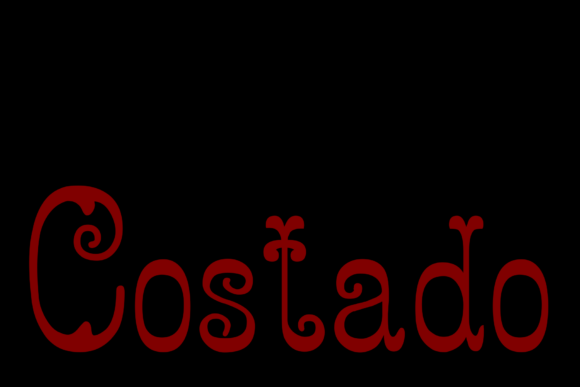
Introducing Costado Font: A Timeless Classical Wood-Type Font
In the world of typography, few fonts manage to evoke a sense of history and sophistication as effortlessly as Costado Font. This classical wood-type font, with its elegant and vintage letterforms, is inspired by the traditional woodblock printing techniques of the past. With its sturdy and timeless appearance, Costado Font is the perfect choice for designers looking to add a touch of nostalgia and refinement to their projects.
The Inspiration Behind Costado Font
Costado Font draws its inspiration from the traditional woodblock printing methods that were once used to create signage, posters, and other printed materials. The font’s designer sought to capture the essence of this classic printing technique, with its characteristic imperfections and quirks, and translate it into a digital format.
The result is a font that exudes a sense of history and authenticity, with each letterform carefully crafted to evoke the feel of traditional woodblock printing. From the subtle variations in line width to the gentle wear and tear of the letterforms, Costado Font is a masterful recreation of a bygone era.
Key Features of Costado Font
Costado Font is a versatile and elegant font that offers a range of features that make it perfect for a variety of design projects. Some of its key features include:
- Elegant, vintage letterforms: Inspired by traditional woodblock printing, Costado Font’s letterforms are characterized by their classic, timeless appearance.
- Two styles: Costado Font offers two styles, allowing designers to choose the perfect look for their project.
- Timeless and sturdy appearance: The font’s sturdy and timeless appearance makes it perfect for designs that need a touch of history and sophistication.
Uses for Costado Font
Costado Font is a versatile font that can be used in a wide range of design projects, from:
- Branding and logos: The font’s elegant, vintage letterforms make it perfect for creating sophisticated and timeless logos.
- Print materials: Costado Font is ideal for use in print materials such as brochures, flyers, and posters.
- Web design: The font’s clear and legible letterforms make it suitable for use on the web, whether for headings, titles, or body text.
- Packaging and labels: The font’s sturdy and timeless appearance makes it perfect for use on packaging and labels.
Benefits of Using Costado Font
There are many benefits to using Costado Font in your design projects, including:
- Unique and distinctive look: The font’s elegant, vintage letterforms give it a unique and distinctive look that sets it apart from more modern fonts.
- Timeless appeal: The font’s timeless and sturdy appearance ensures that it will remain legible and stylish for years to come.
- Versatility: Costado Font can be used in a wide range of design projects, from branding and logos to print materials and web design.
Tips for Using Costado Font
To get the most out of Costado Font, here are a few tips to keep in mind:
- Use it sparingly: The font’s elegant, vintage letterforms are best used sparingly, as a headline or title font, rather than for body text.
- Experiment with colors: The font’s sturdy and timeless appearance makes it perfect for use with a range of colors and textures.
- Pair it with other fonts: Costado Font can be paired with other fonts to create a unique and interesting look.
In conclusion, Costado Font is a classical wood-type font that offers a unique and distinctive look that is perfect for designers looking to add a touch of history and sophistication to their projects. With its elegant, vintage letterforms and sturdy and timeless appearance, Costado Font is a versatile font that can be used in a wide range of design projects. Whether you’re looking to create a logo, print materials, or a website, Costado Font is a great choice.